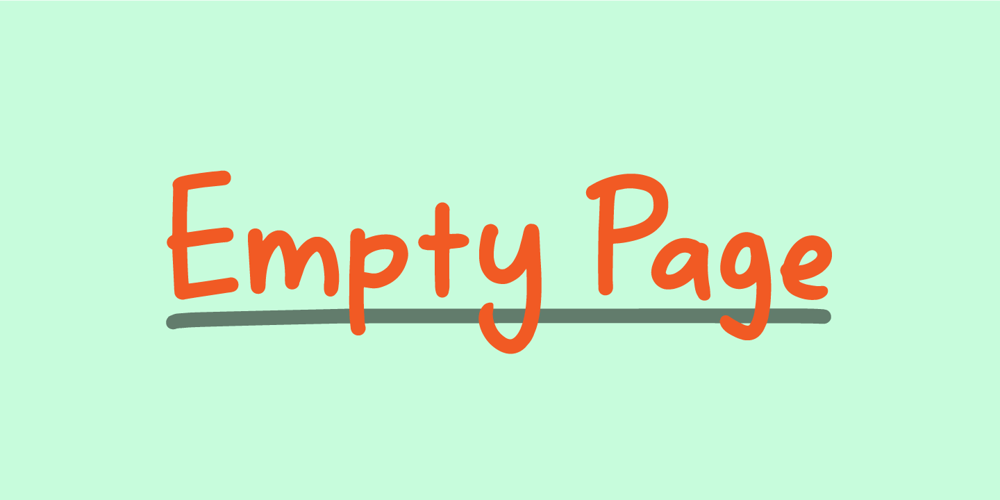
Empty Page
Empty Page font
Empty Page Font Family was designed by Jakob Fischer and published by PizzaDude.dk. Empty Page contains 2 styles and family package options. A font based upon my own handwriting (when I am concentrating and making each letter legible!)Very suitable for anything that needs a handwritten feeling. I’ve added 4 (slightly) different versions of each lowercase letter, and that really helps making your text look more like real handwriting rather than “just a font”